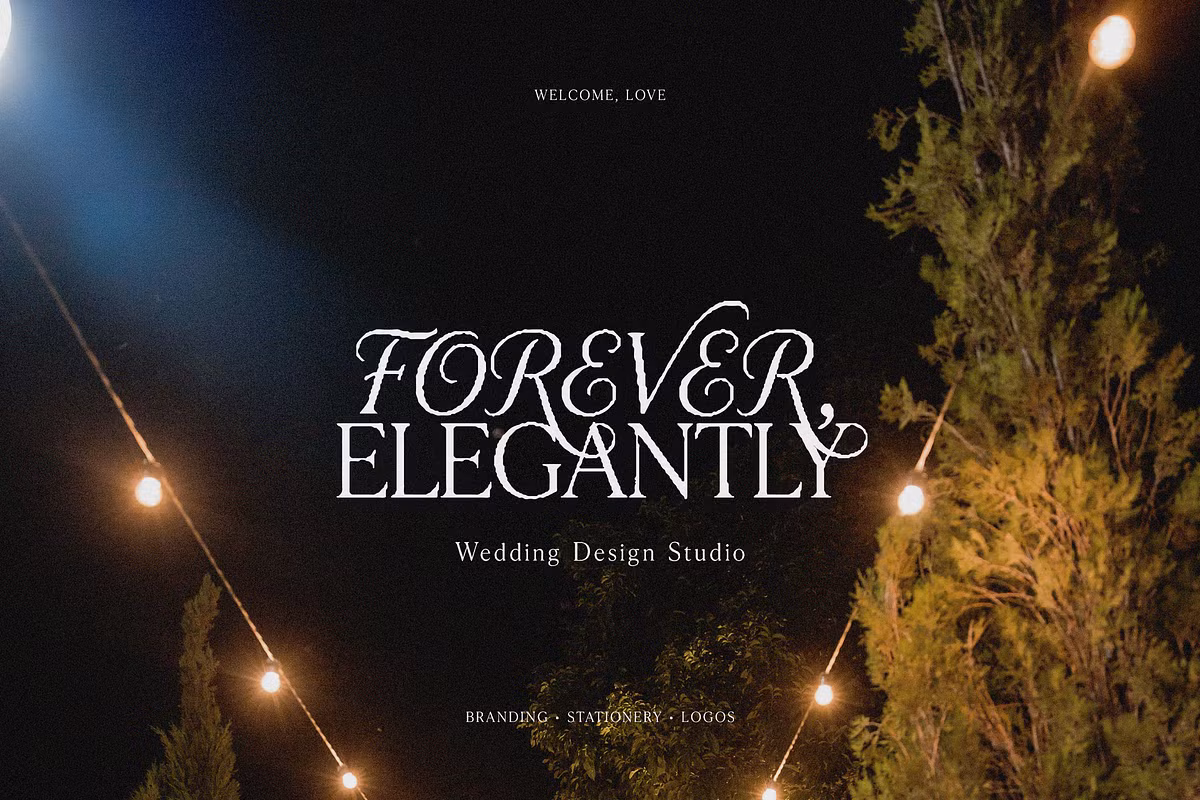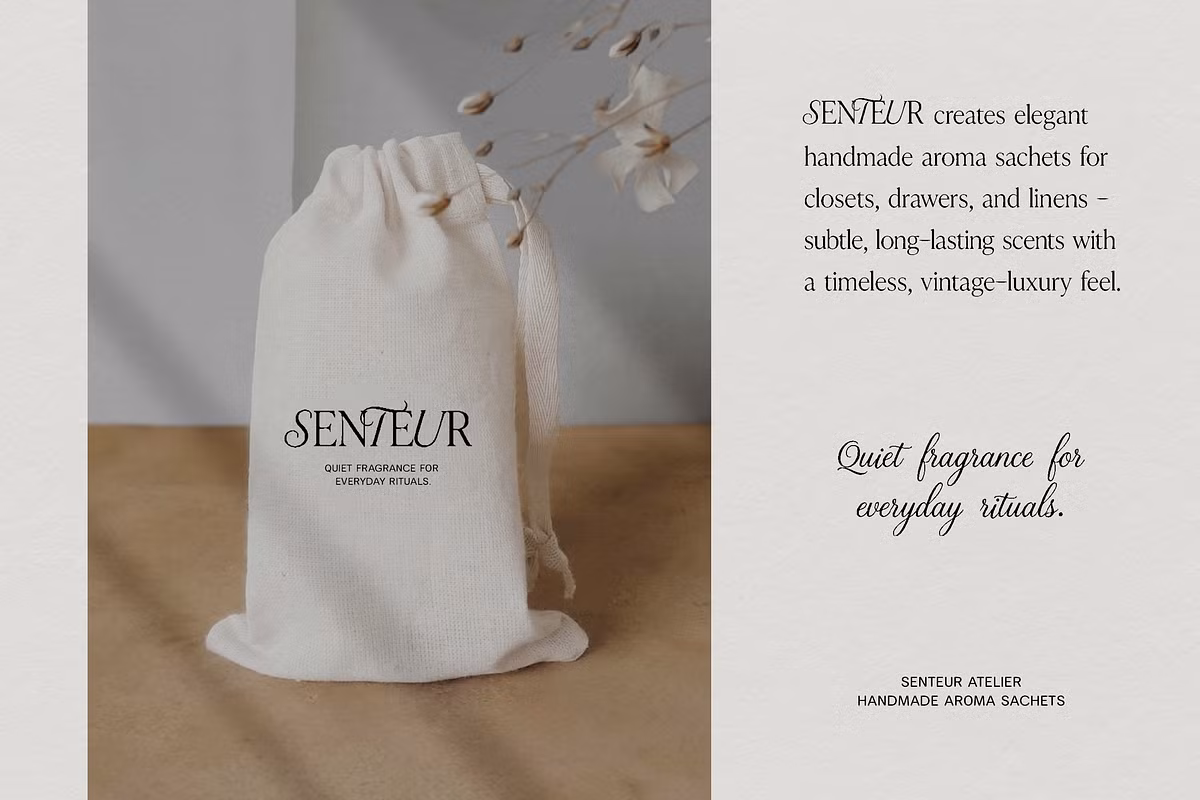
Grace Wren Font Collection: Elegant Serif and Script Typography for Design
Grace Wren Font Collection
Grace Wren Font Collection: Elegant Serif and Script Typography for Design
Introducing the Grace Wren Font Collection
The Grace Wren Font Collection is a lovely set of fonts that has a romantic and elegant feel to it. It’s perfect for people who want to add a touch of sophistication to their designs. This collection has three different font styles: a classic serif, a beautiful script, and a unique hybrid style that combines elements of both. You can mix and match these styles to create a look that’s all your own. Whether you’re designing a wedding invitation, a logo for a boutique brand, or just want to add some elegance to your project, the Grace Wren collection is a great choice. It’s ideal for creating a custom, high-end look that will make your designs stand out. With this collection, you can tell beautiful stories through your designs and add a touch of dreamy romance to your work.
Example of elegant serif and script fonts
Illustration of the Grace Wren Font Collection.
Design Style of Grace Wren
The design style of the Grace Wren Font Collection is deeply rooted in classic aesthetics while embracing modern versatility. The Serif typeface features sharp, clean lines and traditional forms that establish a sense of reliability and professionalism. In contrast, the Script font exudes a fluid, handwritten quality that adds a personal touch and warmth to your text.
The Hybrid style is really where things get interesting, because it brings together the best of both worlds – Serif and Script. This means you can create something totally new and innovative with your typography. One of the coolest things about Hybrid style is that you can mix and match different elements within the same word, which gives your designs a one-of-a-kind look that really grabs attention. The Grace Wren collection is a great example of this, because it’s not only beautiful to look at, but it’s also super versatile and can be used in lots of different design projects.
Showcasing the hybrid style of fonts
Demonstration of hybrid font style versatility.
Character Sets and Versatility
Each style in the Grace Wren Font Collection features extensive character sets that include uppercase and lowercase letters, numerals, and a variety of punctuation marks. This comprehensive range ensures that you have all the typographic elements you need to create stunning designs.
These fonts are really flexible, so you can use them in all sorts of situations – from serious documents to fun party invitations. The Serif font is great for the main text, it looks clean and easy to read. The Script font is better for things like names, or to draw attention to something, and it’s also good for decorative touches. Then there’s the Hybrid style, which is perfect for special moments, like when you want to add a bit of personality to your design and make it stand out.
Examples of character sets in the font collection
Character sets from the Grace Wren Font Collection.
Use Cases for the Grace Wren Collection
The Grace Wren Font Collection is particularly well-suited for a variety of design projects. Here are some of the most common use cases:
• Wedding Invitations: For a beautiful wedding invitation, use a fancy font like Serif for the main part. It looks great for the main details. Then, use a pretty Script font for the couple’s names and special dates, like the wedding day. It adds a touch of elegance and makes it feel extra special.
• Logos and Branding: The combination of Serif and Script can create a memorable logo that reflects the personality of a brand, perfect for boutiques and beauty labels.
• Packaging: Grace Wren’s fonts are ideal for product packaging, giving your items a sophisticated yet approachable look that attracts customers.
• Book Covers: Book covers can be really eye-catching when they use the right fonts. The Script font gives off a romantic feel, while the Serif font looks professional. When you put them together, it can make the cover look really appealing and grab the reader’s attention.
• Romantic Quotes: Use the fonts to create beautiful typographic art featuring inspirational quotes, perfect for home decor or gifts.
Sample design using Grace Wren fonts for various projects
Creative applications of the Grace Wren Font Collection.
Pairing Suggestions for Enhanced Design
Consider the various ways to pair these fonts to enhance your designs further. The unique characteristics of each font style allow for creative combinations that can elevate your projects to new heights.